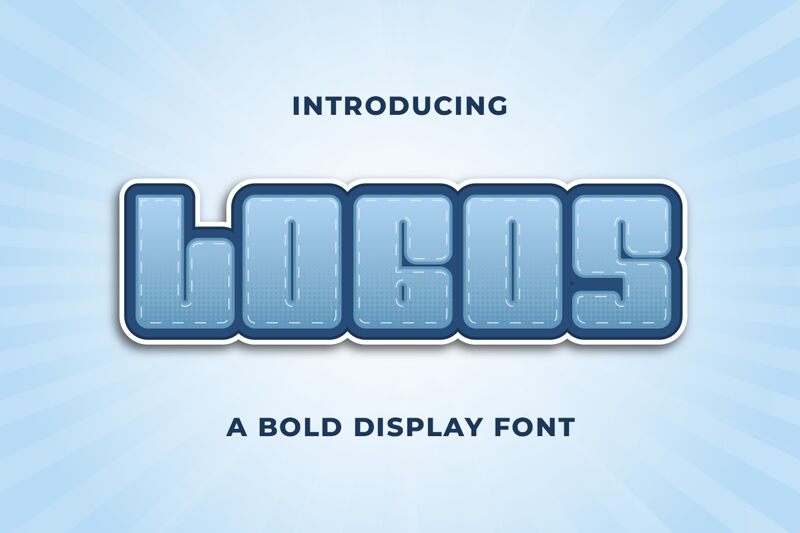
Logos
Logos font designed by Kong Font is a stunning sans serif font with techno vibe.
One of the reasons why this design is so popular with both professional and amateur designers is that it really does command attention and put forward a strong message. A simple yet bold geometric letterform provides confidence and strength, making it perfect for use in branding, headlines, or other designs that need to have impact. The bold minimalist look creates a contemporary industrial feel that is suggestive of power and authority. For me, one thing stands out about Logos: its clean lines and individual character shapes make it stand out when compared to many other typefaces.
This font is also known for its ability to go beyond appearances. Considering all the factors like legibility in certain contexts or on screen where the user will be reading tiny fonts day in day out; this font can be used on websites menus, navigation bars or even mobile phones interfaces because of its easy readability hence users do not struggle with reading small prints on their screens.